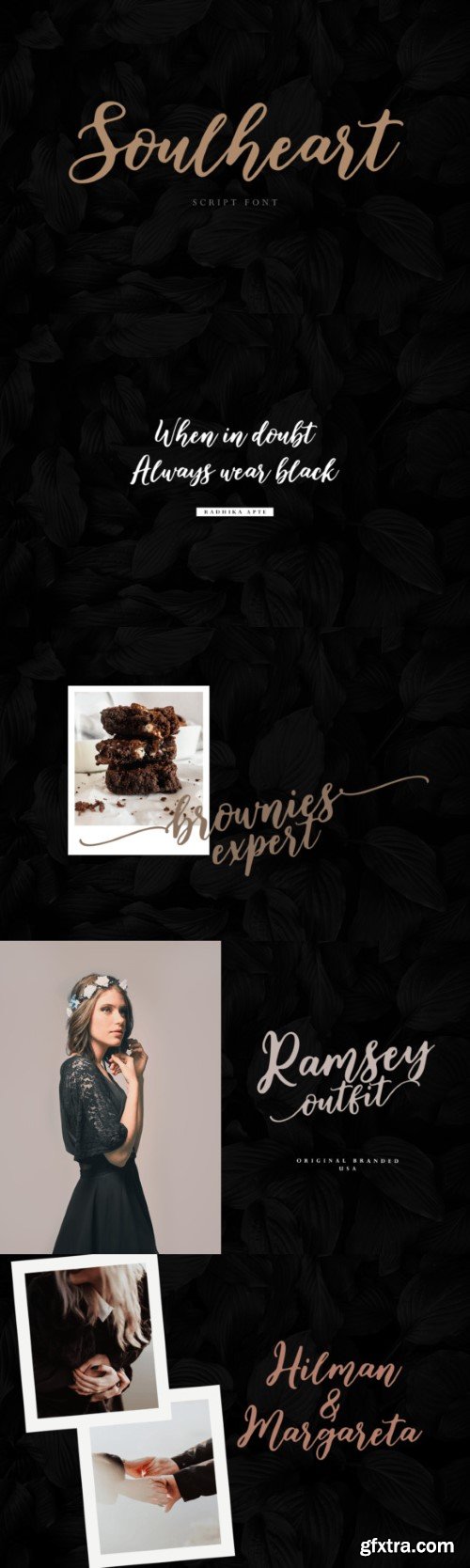
Soulheart is a warm and inviting handwritten font that adds a personal touch to your text. With its natural, flowing strokes, this font captures the essence of hand lettering, bringing a touch of soul to your projects. Whether you’re creating cards, messages, or anything that calls for a personal feel, Soulheart is the perfect choice for adding a heartfelt and genuine vibe to your words.